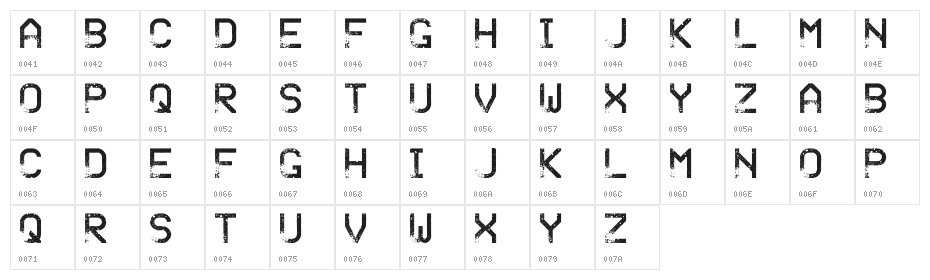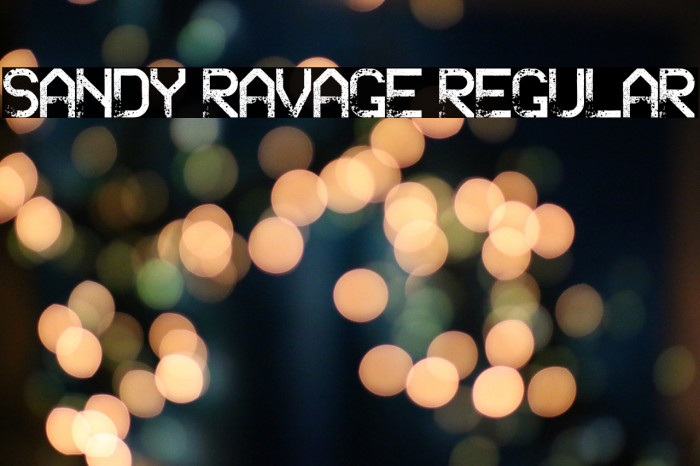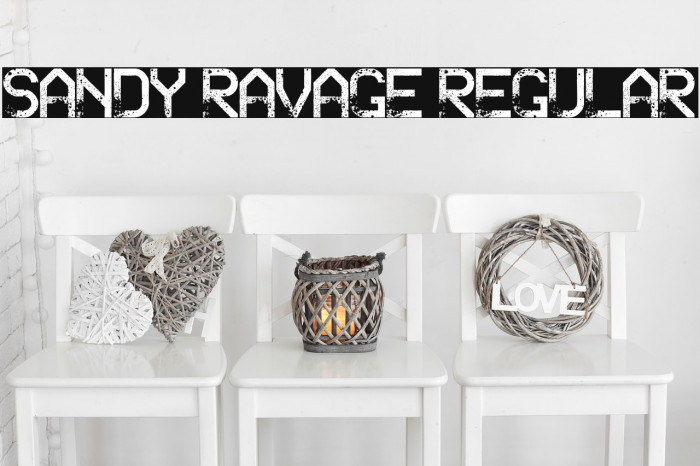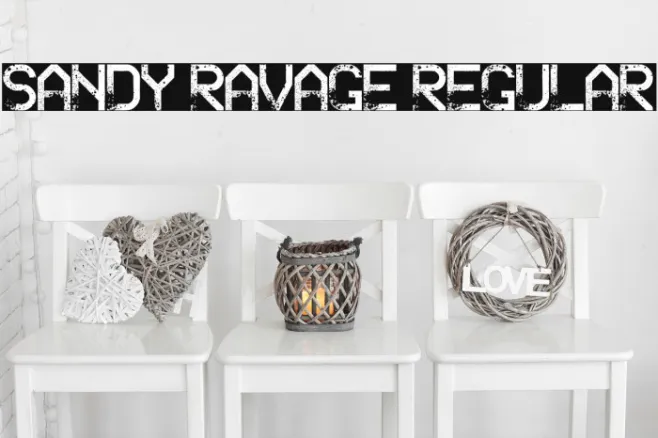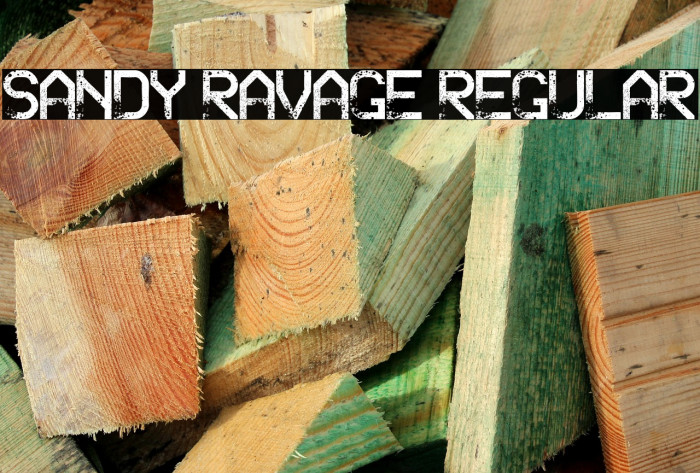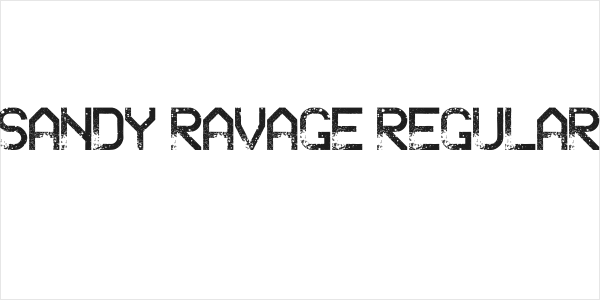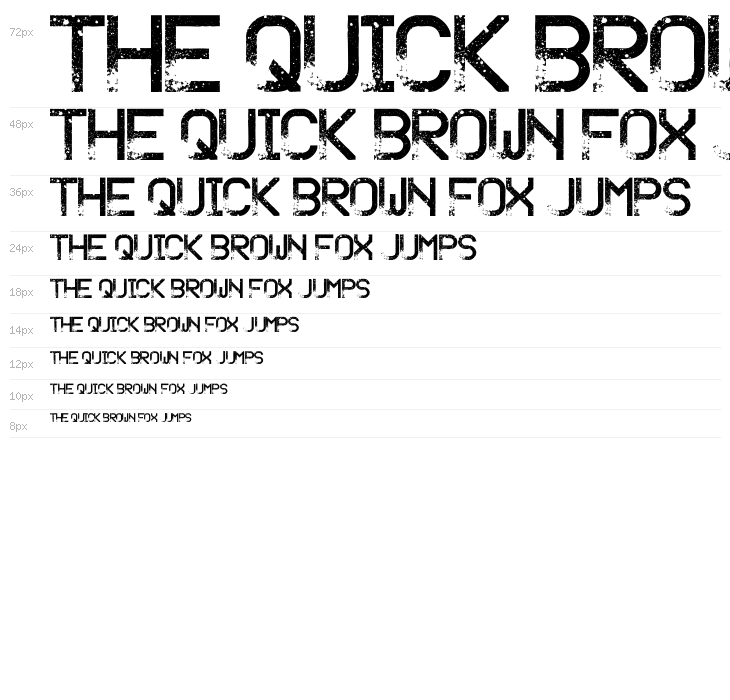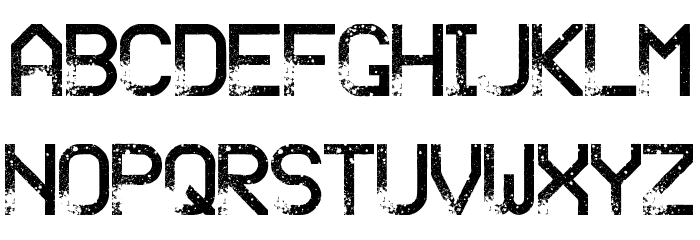
Sandy Ravage Regular Font
Sandy Ravage Regular Description
This font features a distressed, grunge style with a bold and rugged appearance. The characters are uppercase with a rough texture that gives a worn and weathered look, reminiscent of vintage or industrial themes. The edges are uneven, adding to the distressed effect, while maintaining a strong and impactful presence. This style is ideal for designs that require a bold statement with a touch of edginess and character. The font's unique texture makes it stand out, providing a visually engaging experience.
| Overall Style | Vintage, Grunge |
| Proposed Projects | Ideal for posters, album covers, branding for edgy or vintage-themed products, and any design requiring a bold, impactful statement. |